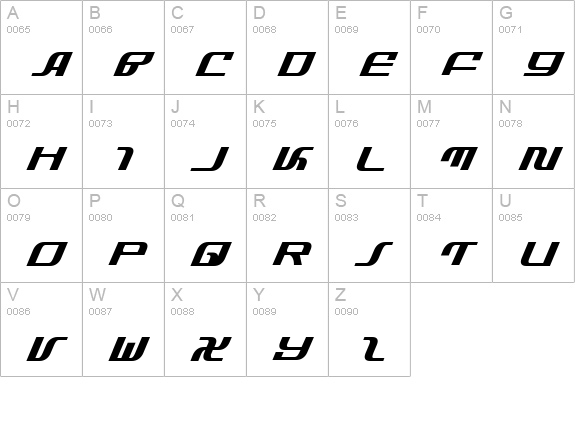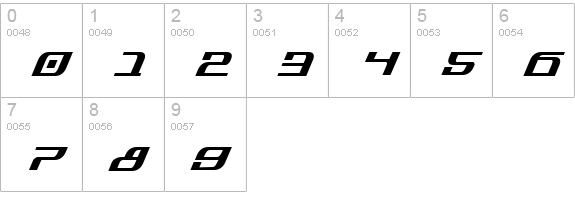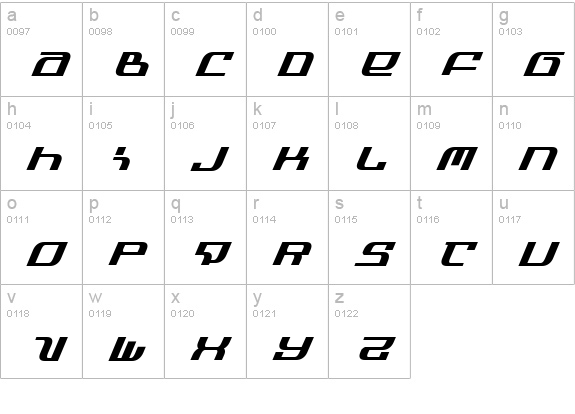
Infinity Formula Italic is a distinctive, italic variant in the Infinity typeface family \xE2\x80\x94 well suited to design and typography projects.
Infinity Formula Italic font is a sleek and modern typeface that exudes elegance and sophistication. Its italicized style adds a touch of flair and creativity to any design project. The flowing curves and sharp angles of this font create a dynamic and eye-catching look that is sure to captivate your audience. What's even better is that Infinity Formula Italic font is available for free download at FontsMarket.com. This means you can easily access this stunning font and use it in your personal or commercial projects without any cost. With its versatility and unique design, Infinity Formula Italic font is the perfect choice for adding a touch of style and personality to your creative work. Download it now and elevate your designs to the next level!